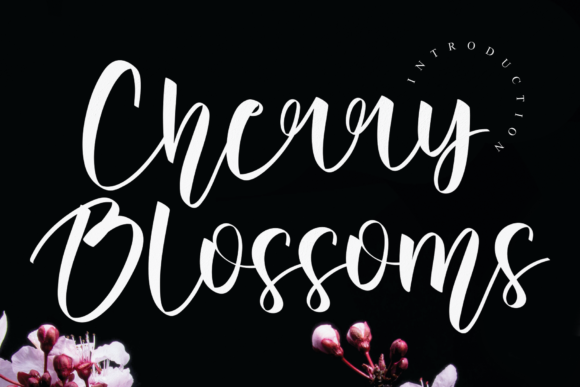
Introducing Cherry Blossoms Font: The Epitome of Elegance and Sophistication
Are you a designer, crafty individual, or simply someone who appreciates the beauty of typography? Look no further! We’re excited to introduce you to the stunning Cherry Blossoms Font, a handwritten typeface that exudes elegance and sophistication. With its sleek characters and high-quality appearance, this font is sure to become a prized addition to your font library.
What Makes Cherry Blossoms Font So Special?
Cherry Blossoms Font is an exquisite and sleek handwritten font that boasts a unique charm. Its stylish characters are carefully crafted to provide a high-quality look that’s perfect for a wide range of design projects. Whether you’re working on a branding campaign, creating social media graphics, or designing a beautiful wedding invitation, this font is sure to impress.
Key Features of Cherry Blossoms Font
• Exquisite Handwritten Style: Cherry Blossoms Font features a beautiful, handwritten style that’s perfect for adding a touch of elegance to your designs.
• Sleek Characters: The font’s sleek characters are designed to provide a clean and sophisticated look that’s perfect for a wide range of design projects.
• High-Quality Appearance: With its high-quality appearance, Cherry Blossoms Font is sure to make a lasting impression on your audience.
• Versatile: This font is perfect for a wide range of design projects, from branding and advertising to social media graphics and more.
Why Designers and Crafters Love Cherry Blossoms Font
Designers and crafters love Cherry Blossoms Font for its unique blend of style and versatility. Here are just a few reasons why:
• Customization Options: With its range of customization options, you can easily tailor Cherry Blossoms Font to suit your design needs.
• Unique Style: The font’s unique style sets it apart from other fonts, making it perfect for designers and crafters who want to add a touch of elegance to their work.
How to Use Cherry Blossoms Font in Your Designs
Using Cherry Blossoms Font in your designs is easy! Here are a few tips to get you started:
• Pair it with Other Fonts: Cherry Blossoms Font pairs perfectly with other fonts, making it easy to create stunning contrast and visual interest in your designs.
• Experiment with Colors: The font’s sleek characters look great in a range of colors, from bold and bright to soft and pastel.
• Add Texture and Patterns: Add texture and patterns to your designs to give them an extra layer of depth and interest.
In conclusion, Cherry Blossoms Font is a must-have for designers and crafters who want to add a touch of elegance and sophistication to their work. With its exquisite handwritten style, sleek characters, and high-quality appearance, this font is sure to become a prized addition to your font library. So why wait? Download Cherry Blossoms Font today and start creating stunning designs that will leave a lasting impression on your audience!